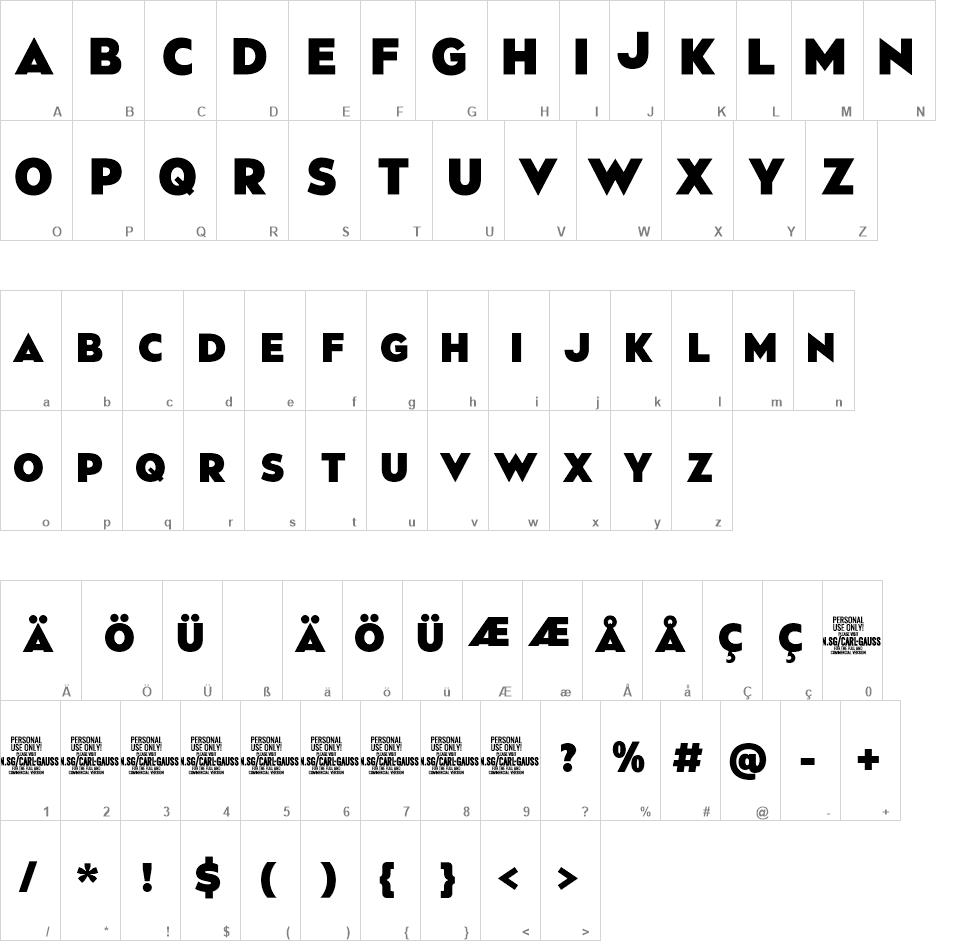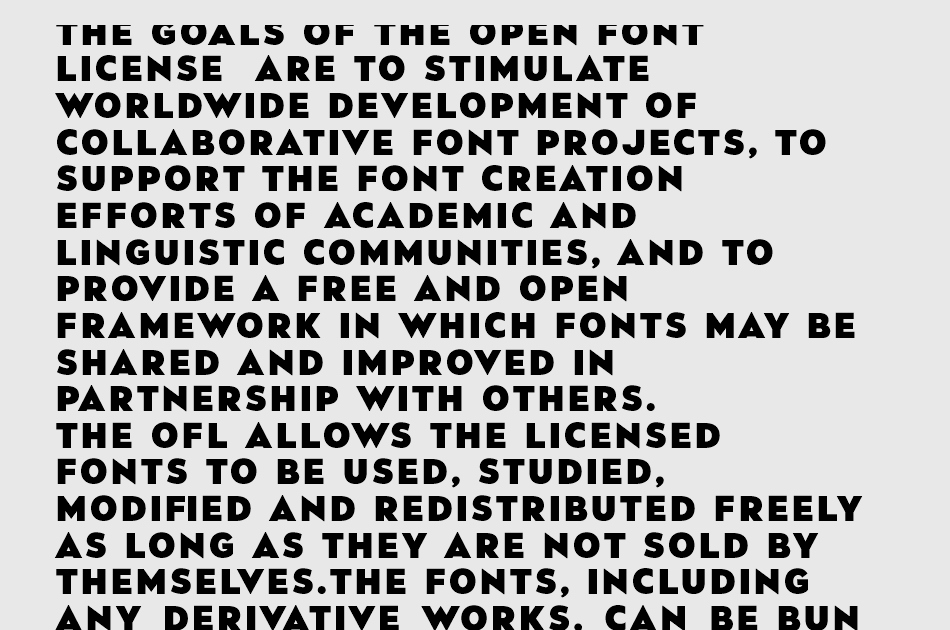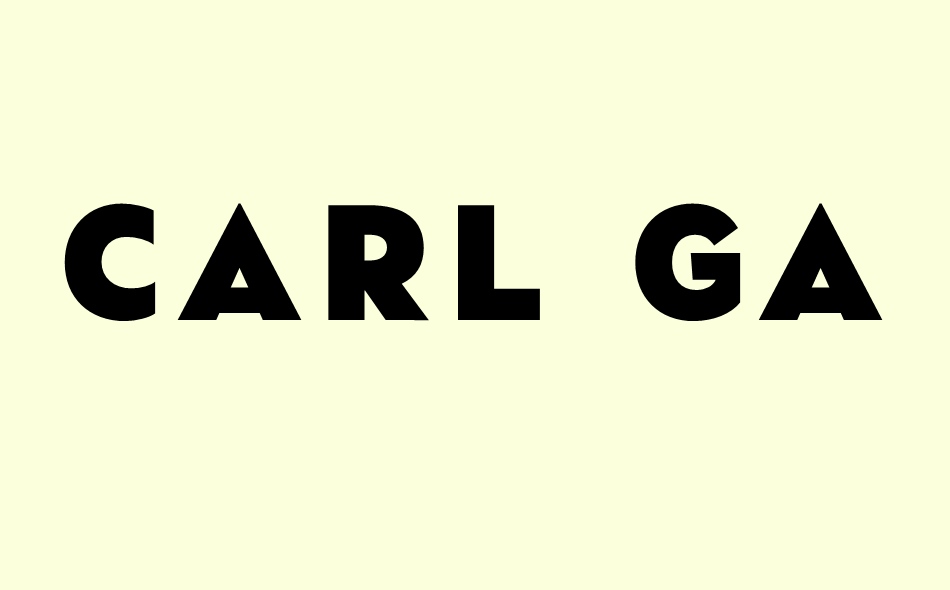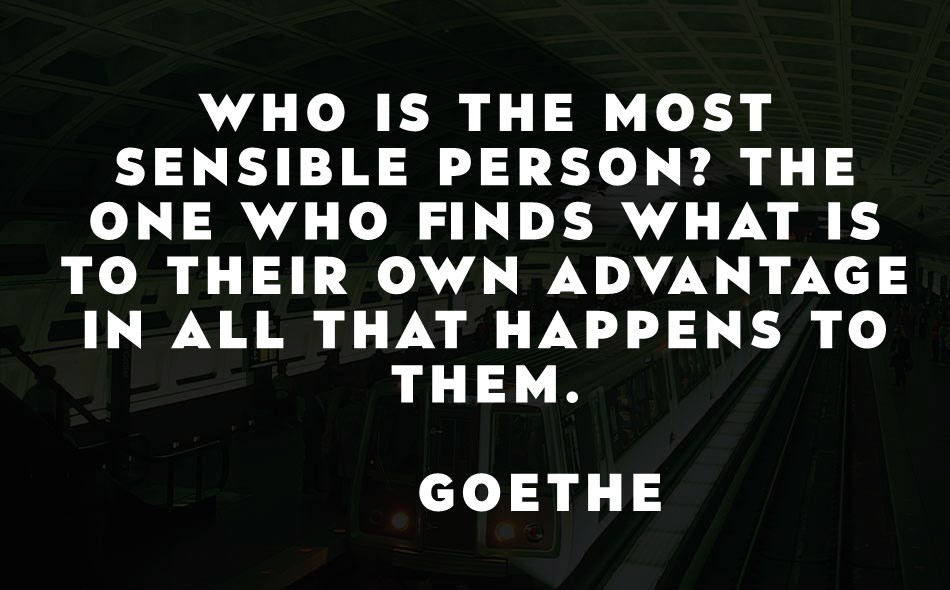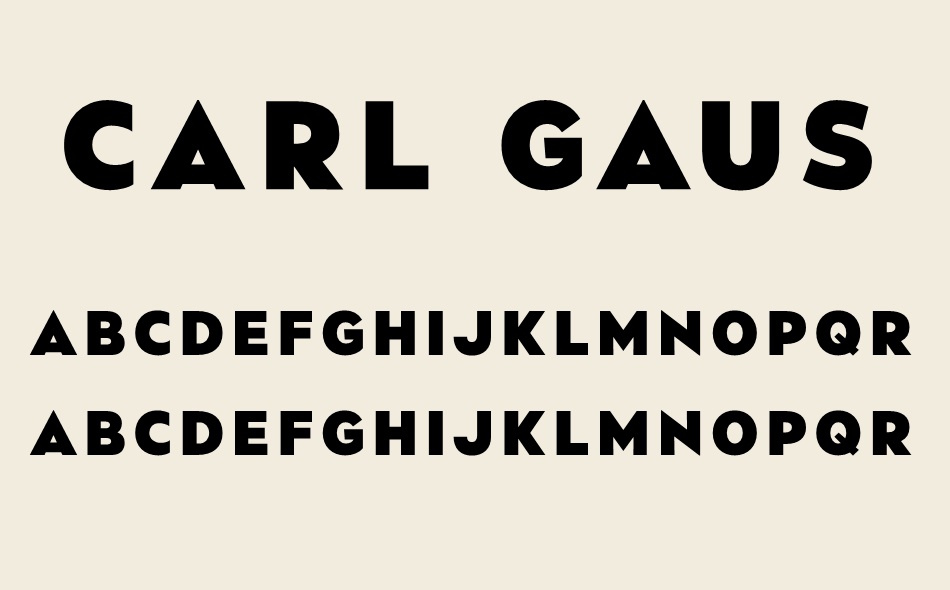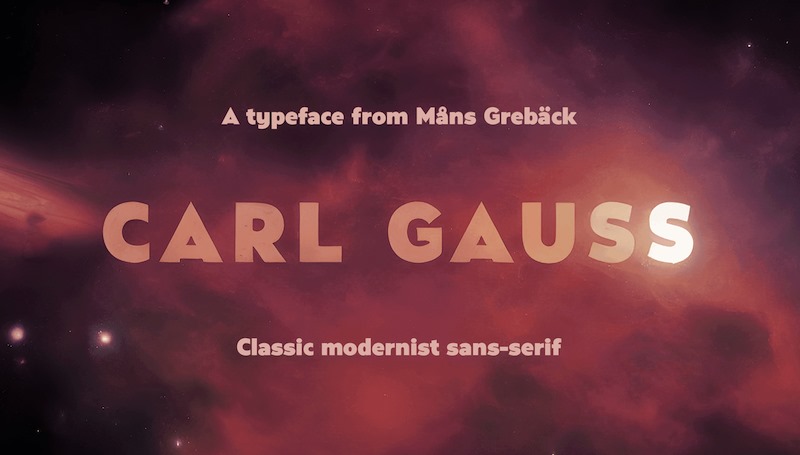
Carl Gauss font
Carl Gauss is a modern sans-serif font that combines geometric precision with the beauty of neo-classic design. Its clean lines and sleek appearance make it an excellent choice for logotypes, branding, and other projects that require a crisp, contemporary touch.
The font's distinct elegance and attention to detail make it an attractive choice for a wide range of applications, from digital to print. Carl Gauss is designed to bring clarity and sophistication to your projects while maintaining a sense of warmth and approachability.
The Carl Gauss font family includes eight high-quality styles to suit various design needs: Regular: A balanced, versatile style for everyday use Italic: Adds a touch of movement and expressiveness to the regular style Bold: A stronger, more assertive version for impactful designs Bold Italic: Combines the boldness of bold with the energy of italic Caps: An all-caps variant of the regular style for a more commanding presence
The font is built with advanced OpenType functionality and has a guaranteed top-notch quality, containing stylistic and contextual alternates, ligatures and more features; all to give you full control and customizability. It has extensive lingual support, covering all Latin-based languages, from Northern Europe to South Africa, from America to South-East Asia. It contains all characters and symbols you'll ever need, including all punctuation and numbers.